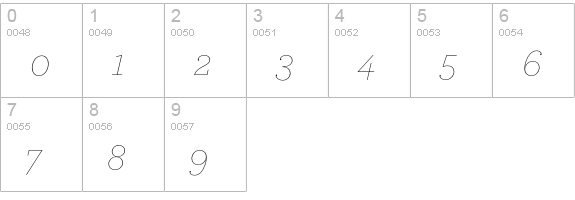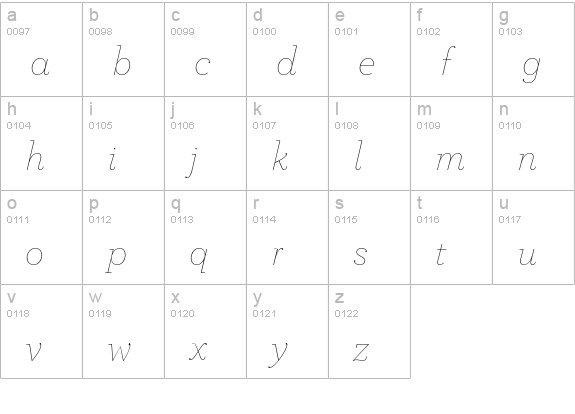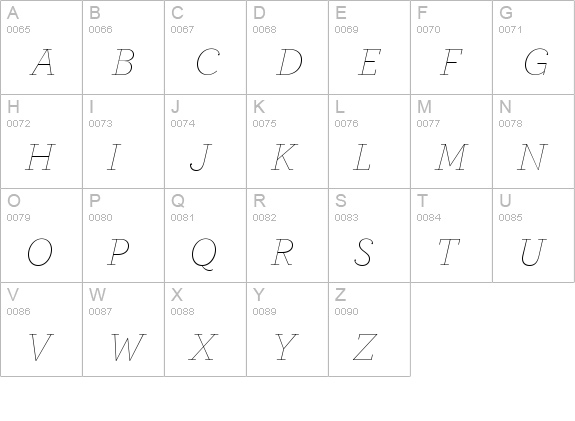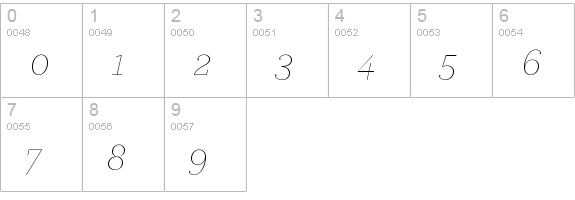
Archer Thin Italic Font Details
Archer Thin Italic is a delicate, low-contrast, italic variant in the Archer typeface family \xE2\x80\x94 well suited to fashion editorial, minimal branding, and high-contrast display.
The Archer Thin Italic font is a sleek and elegant typeface that exudes sophistication and modernity. Its delicate strokes and slanted design give it a unique and stylish appearance, making it the perfect choice for projects that require a touch of finesse. The Thin Italic style adds a subtle emphasis to text, making it stand out without being overpowering. And the best part? This exquisite font is available for free download at FontsMarket.com. Whether you're working on a design project, creating branding materials, or simply looking to add a touch of class to your personal projects, the Archer Thin Italic font is a versatile and beautiful choice that is sure to impress. Download it today and elevate your designs with this stunning typeface.